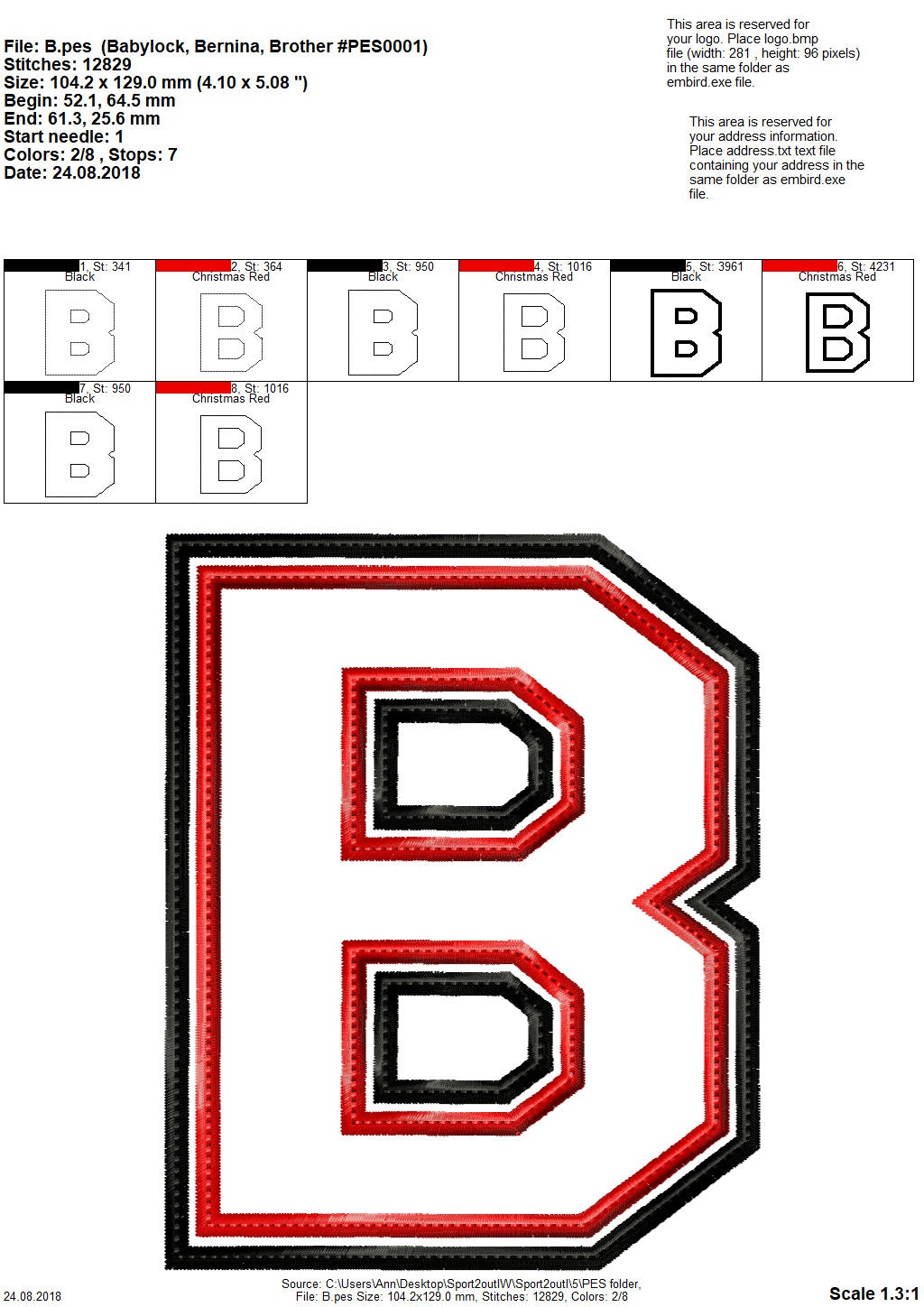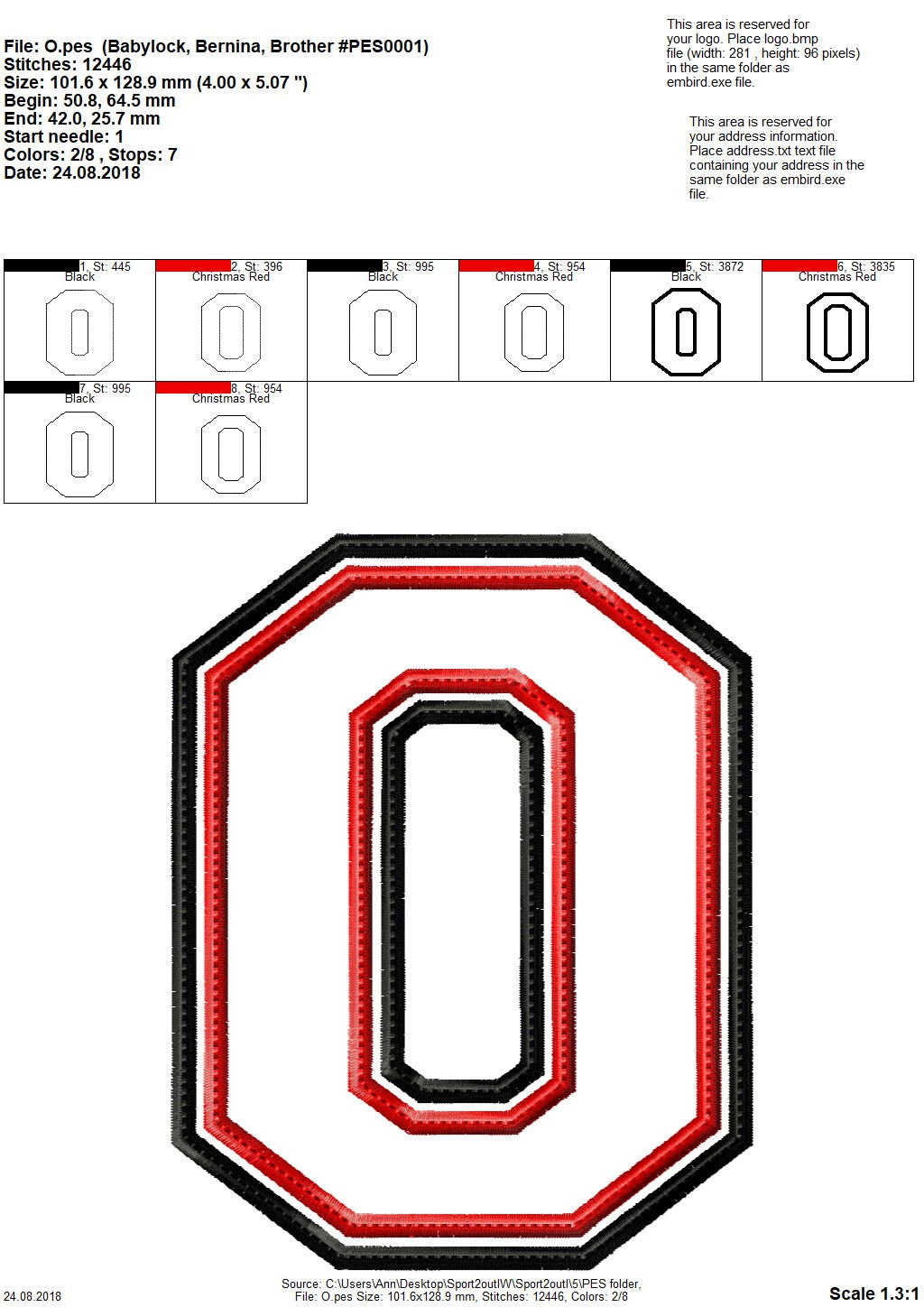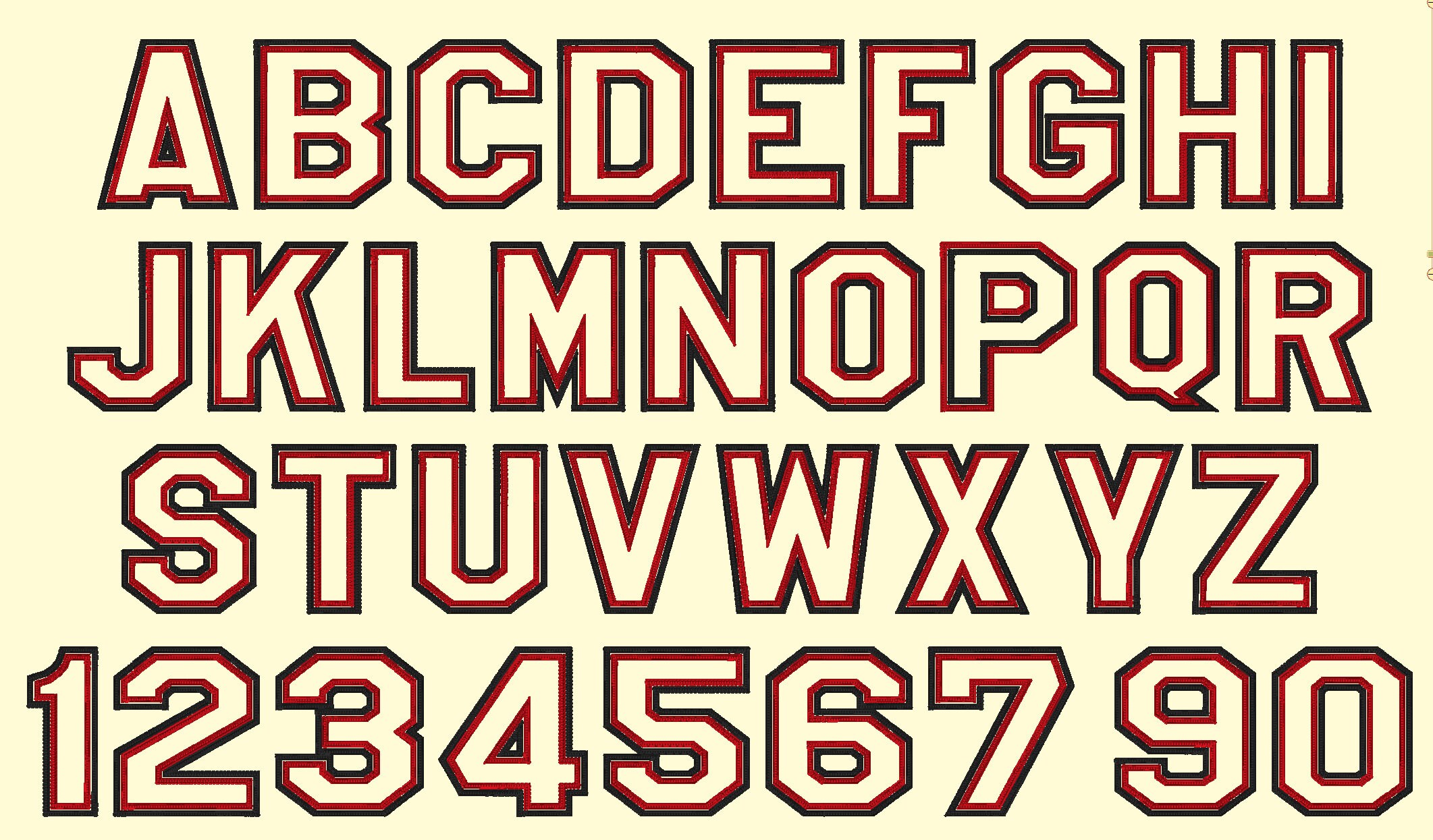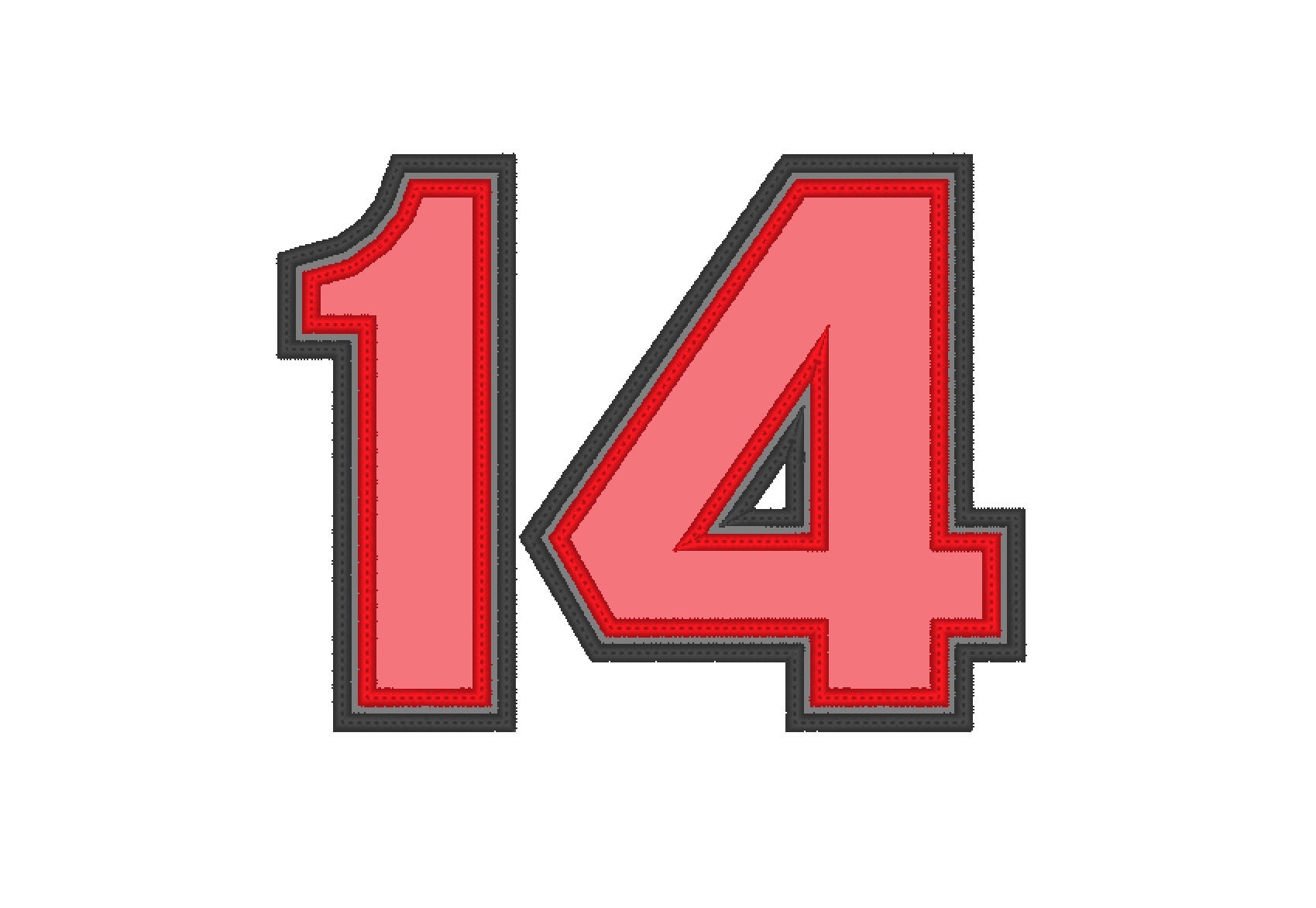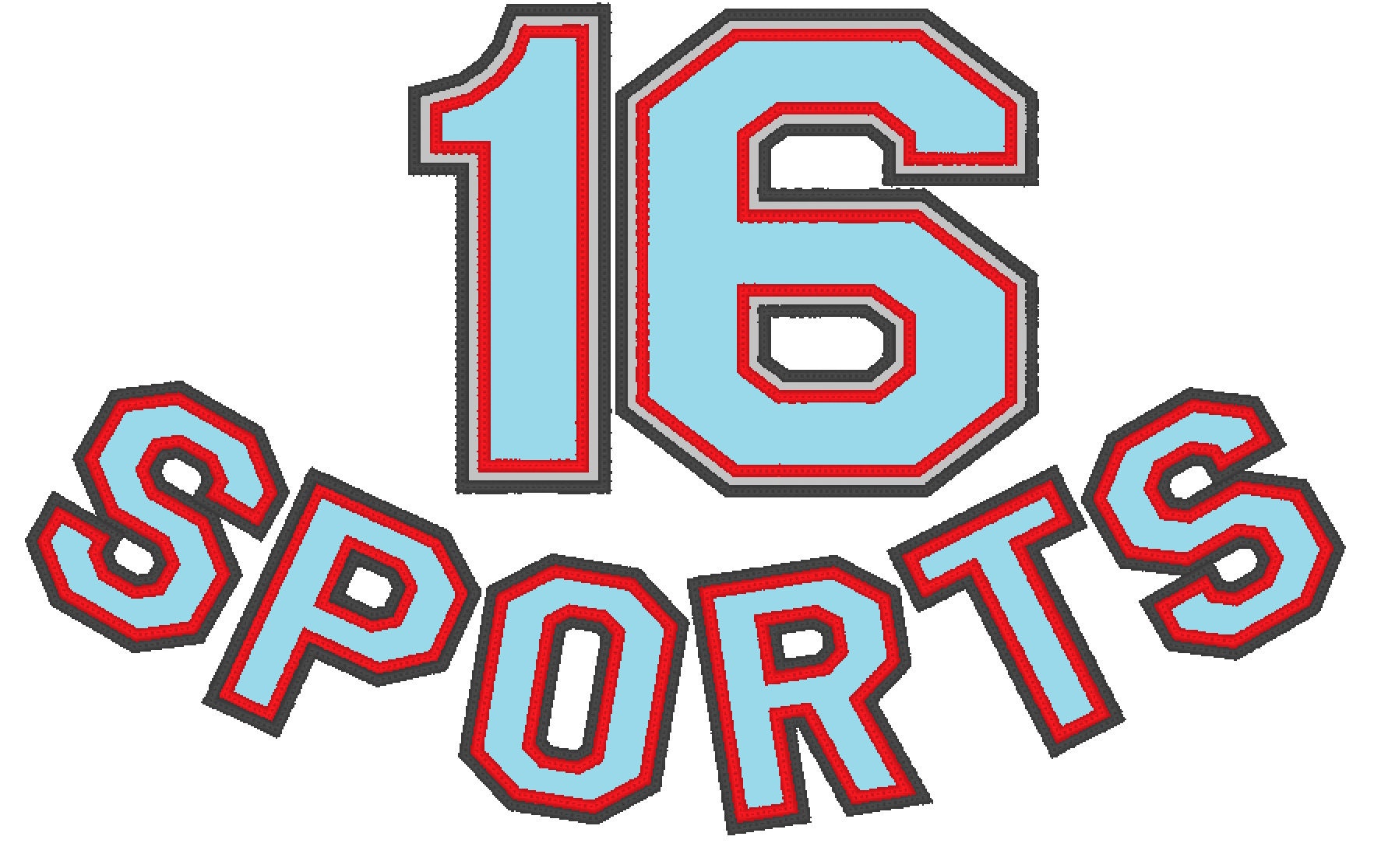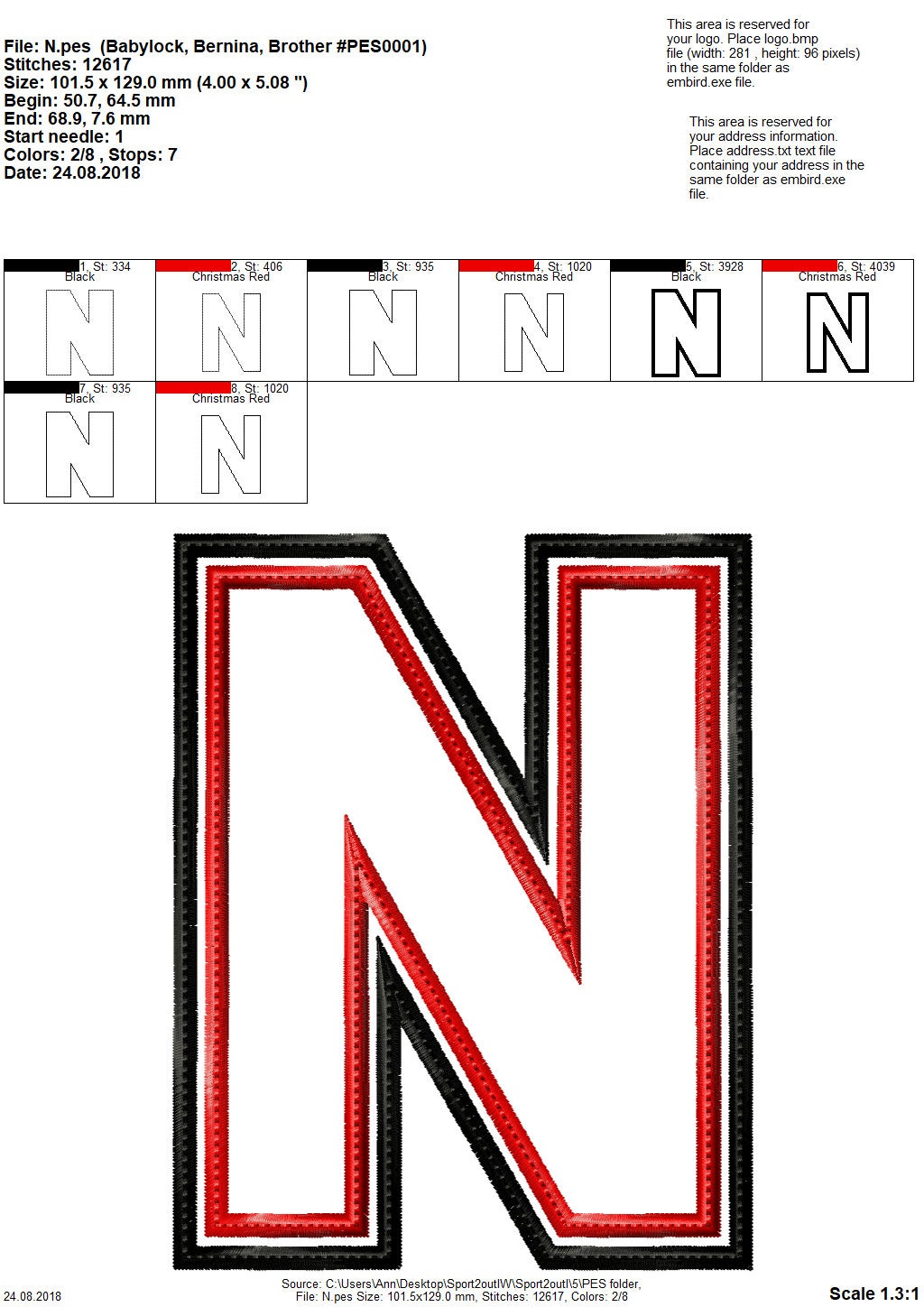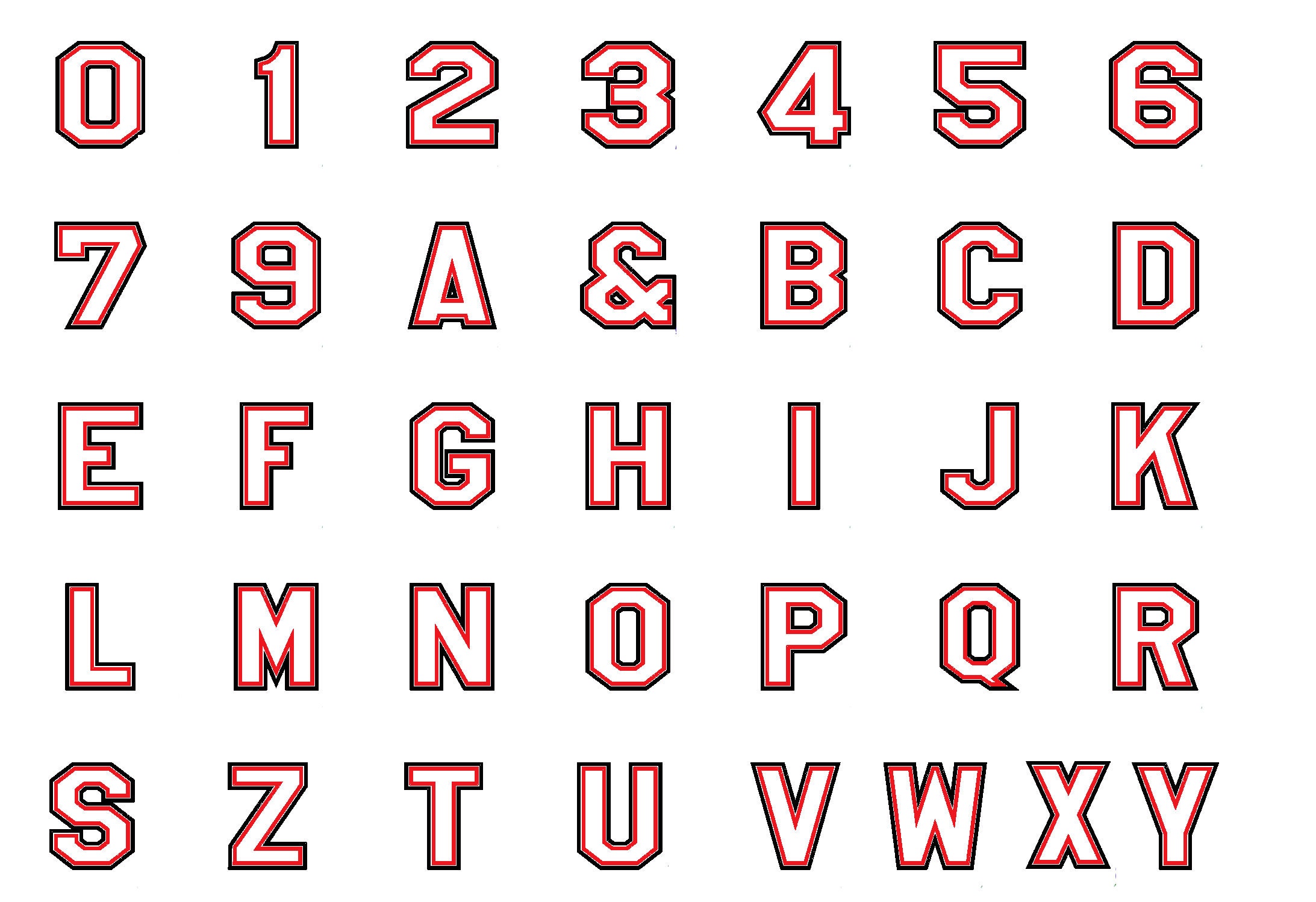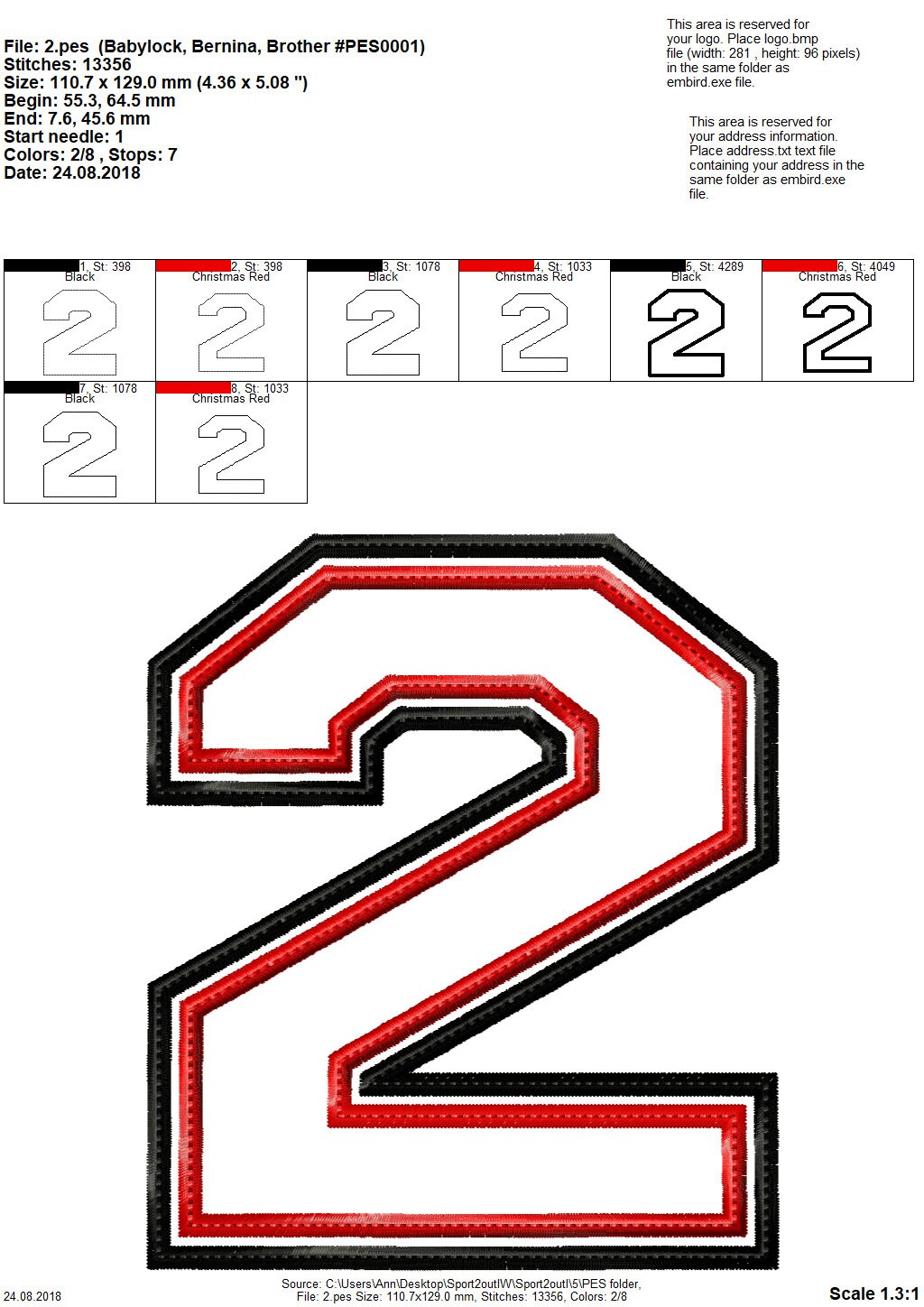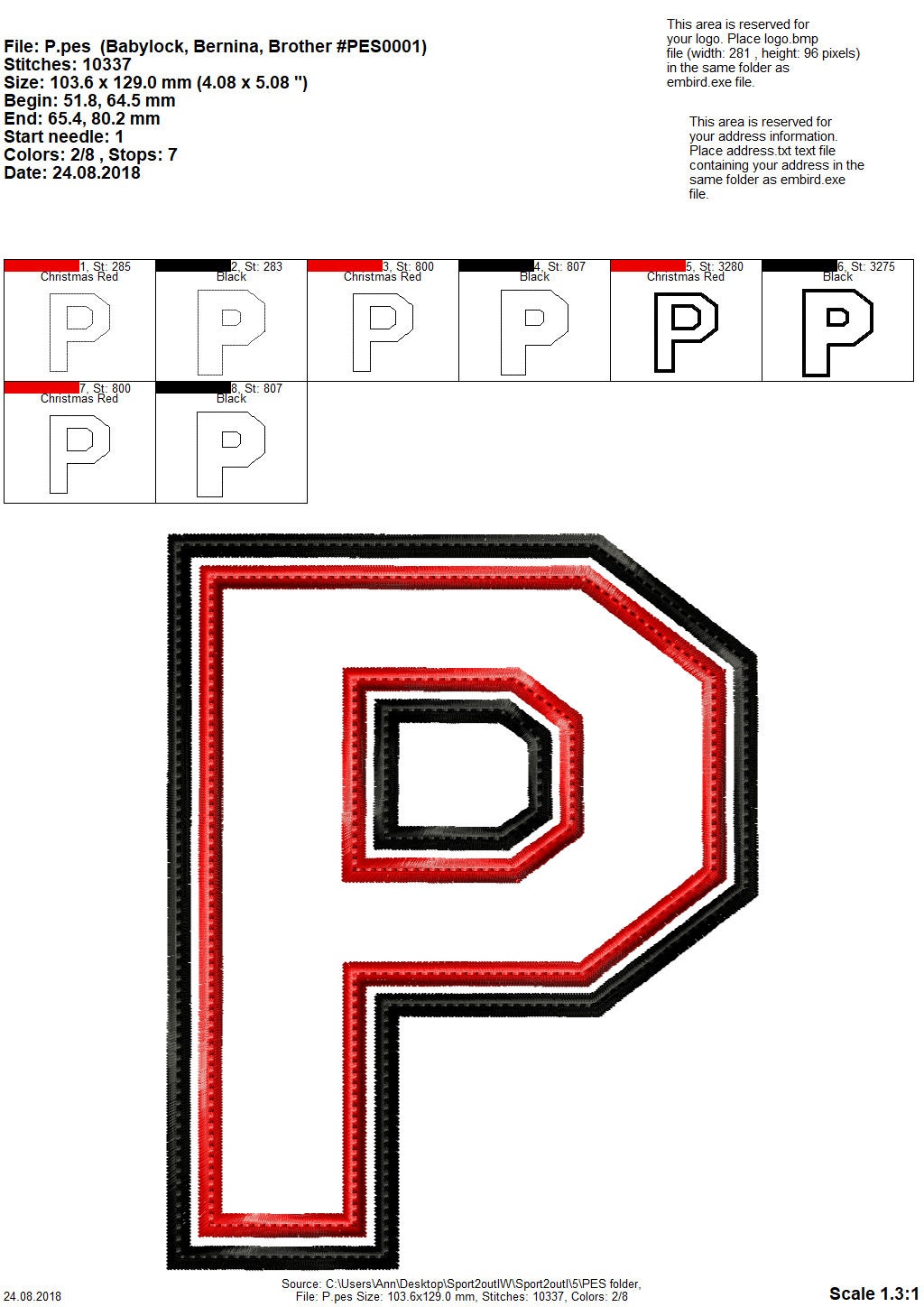
Varsity Collegiate Athletic block type Font machine embroidery designs ABC capital letters and numbers, 2 colors outline applique
This font has 2 layers of an applique steps
1. background color
2. letter color
Letters have wide nice satin stitch and neat top stitch to secure the applique satin stitch in wash!